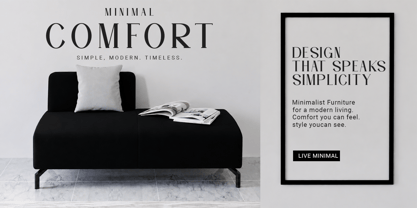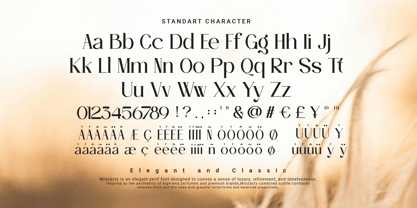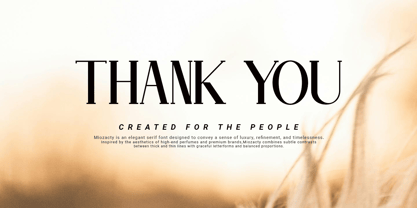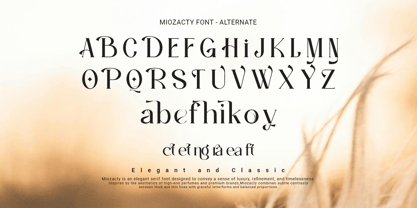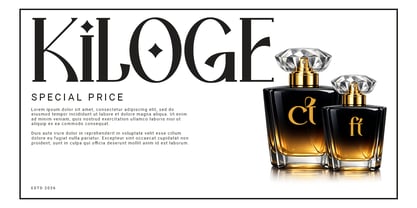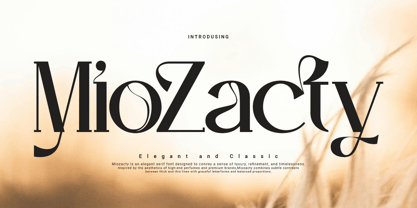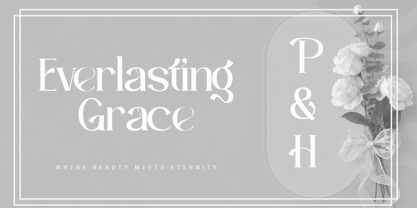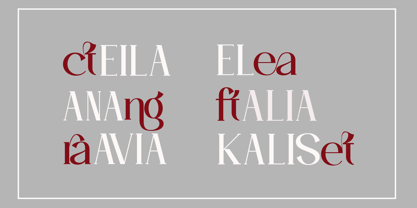
Miozacty
by Agung Sudirman
The Miozacty Font Family was designed by Agung Sudirman and published by Agung Sudirman. Miozacty contains 2 styles and family package options. More about this family
Miozacty is a sophisticated serif typeface that combines timeless elegance with modern refinement. Designed with carefully crafted letterforms, balanced proportions, and graceful serif details, Miozacty delivers a luxurious and professional look suitable for a wide range of creative projects. Its distinctive character creates a strong visual presence while maintaining excellent readability, making it ideal for branding, logo design, editorial layouts, book covers, invitations, packaging, fashion campaigns, luxury products, and high-end marketing materials. The font captures the beauty of classic typography while embracing contemporary design trends, offering flexibility for both traditional and modern aesthetics. Miozacty brings a sense of prestige, confidence, and sophistication to every composition, helping designers create memorable and impactful visual identities. Whether used for elegant headlines, refined body text, or premium branding applications, Miozacty elevates the overall design with its stylish personality and timeless charm, making it a valuable choice for designers seeking a serif font that conveys luxury, authenticity, creativity, and timeless elegance.